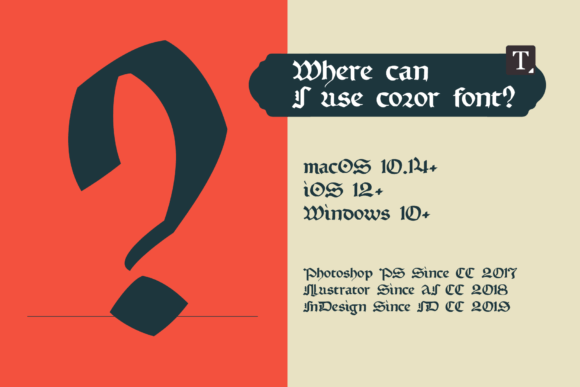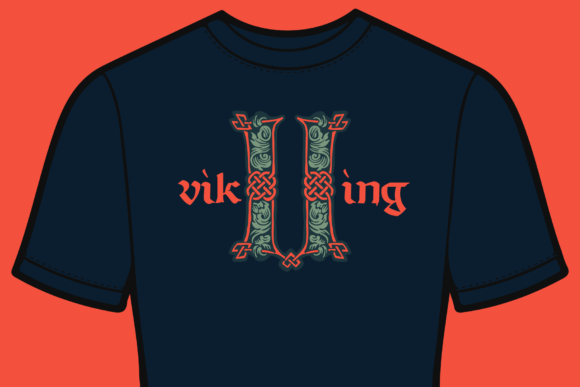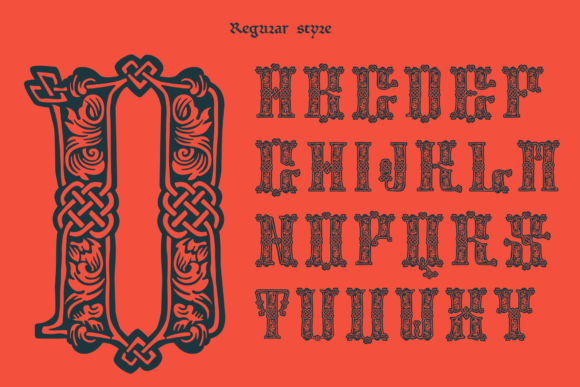
Introduction to Medieval Knots Font
Imagine being transported to a medieval castle, surrounded by intricate stone carvings and ornate manuscripts. As you wander through the halls, you stumble upon a mysterious book adorned with beautiful Celtic knot patterns. The intricate designs seem to come alive as you run your fingers over the pages, and you’re struck by the sheer elegance of the medieval style. This is the moment when the Medieval Knots Font comes to life – a high-quality design resource that lets you infuse your creative projects with the mystique of the Middle Ages.
For designers, the Medieval Knots Font is a treasure trove of creative possibilities. With its transparent background and free download option, you can seamlessly integrate this font into your design without any hassle. Whether you’re working on a logo, a brochure, or a website, this font is sure to add a touch of sophistication and elegance to your work.
Key Features of Medieval Knots Font
- Unique, hand-drawn design inspired by medieval knotwork, perfect for creative projects and historical themes.
- Includes a range of knot patterns and designs, ideal for use in logos, icons, and other design elements.
- Perfect for designers, artists, and crafters looking for a unique and authentic design resource for their next creative project.
Honest Review: Medieval Knots Font
I recently stumbled upon the Medieval Knots Font, and I must say, it’s a game-changer for any creative project that requires a touch of medieval charm. As a designer, I’m always on the lookout for high-quality design resources, and this font definitely delivers.
What works well: ✨ The font is incredibly versatile, with a wide range of knots and patterns to choose from. The transparent background makes it easy to use as a standalone design element or combine with other graphics. The font is also highly customizable, allowing you to adjust the size, color, and spacing to suit your needs.
- High-quality design: The font is meticulously crafted, ensuring a smooth and consistent look across different platforms.
However, there are a few limitations to consider: ⚠️ The font is limited to a specific style and aesthetic, which may not be suitable for all design projects. Additionally, the font is not available in as many languages as some other popular fonts.
Overall, I’m thoroughly impressed with the Medieval Knots Font. It’s a fantastic design resource that adds a unique touch to any creative project. With its high-quality design and versatility, it’s definitely worth checking out.
Medieval Knots Font
The Medieval Knots Font is a free download that offers a high-quality design resource for any creative project. With a transparent background, this font is perfect for adding a unique touch to your designs.
To get the most out of the Medieval Knots Font, use it for titles, headings, and background elements. This font is perfect for creating a medieval or vintage-themed design. You can use it for creating custom logos, graphics, or illustrations.
Some common use cases include:
- Creating a medieval-themed website or blog
- Designing a custom logo for a historical or cultural organization
- Creating a vintage-themed advertisement or poster